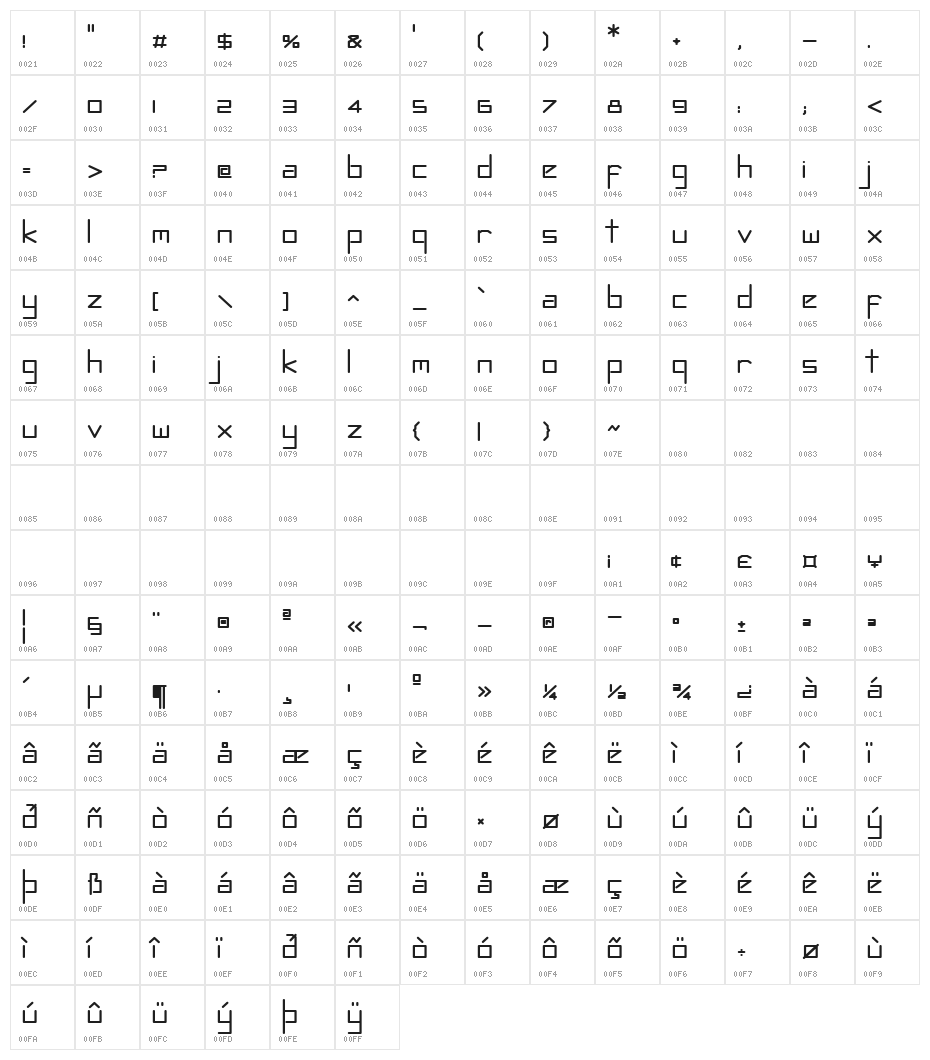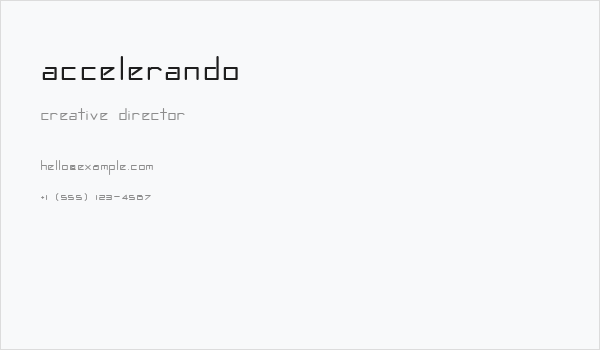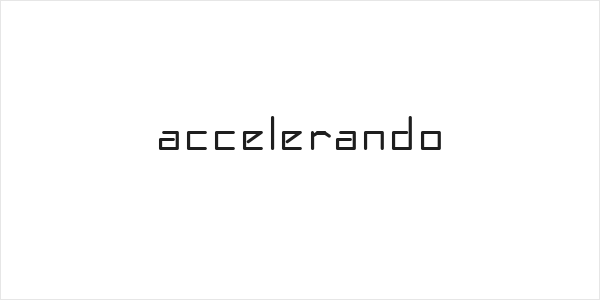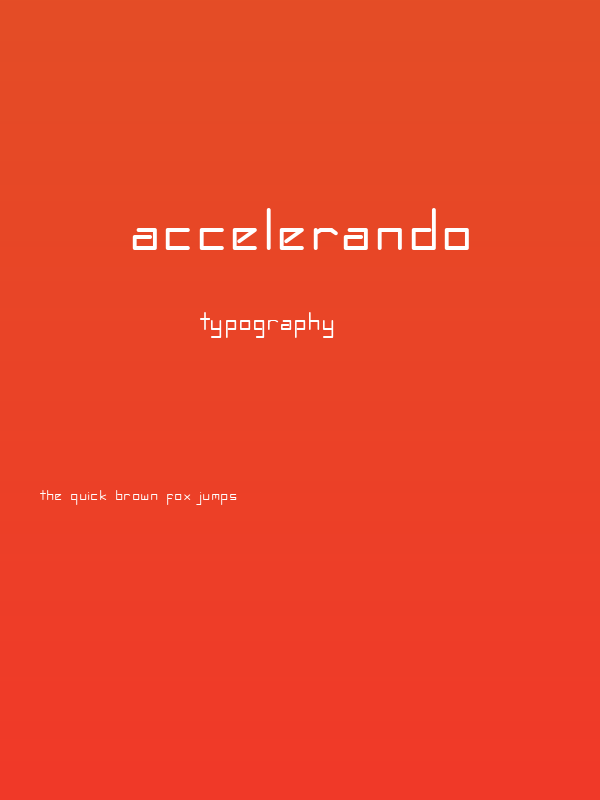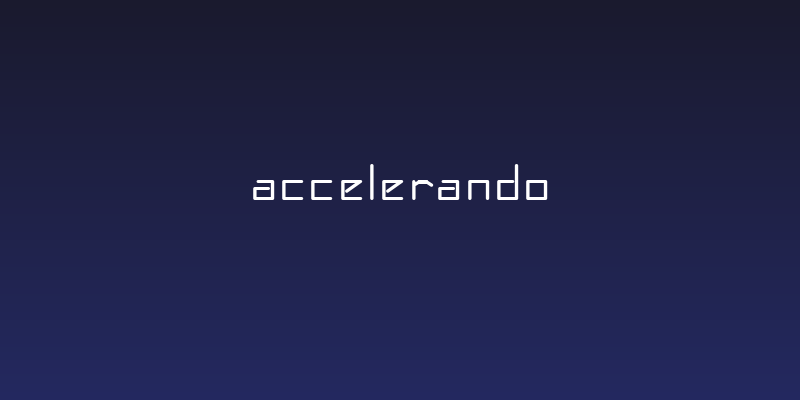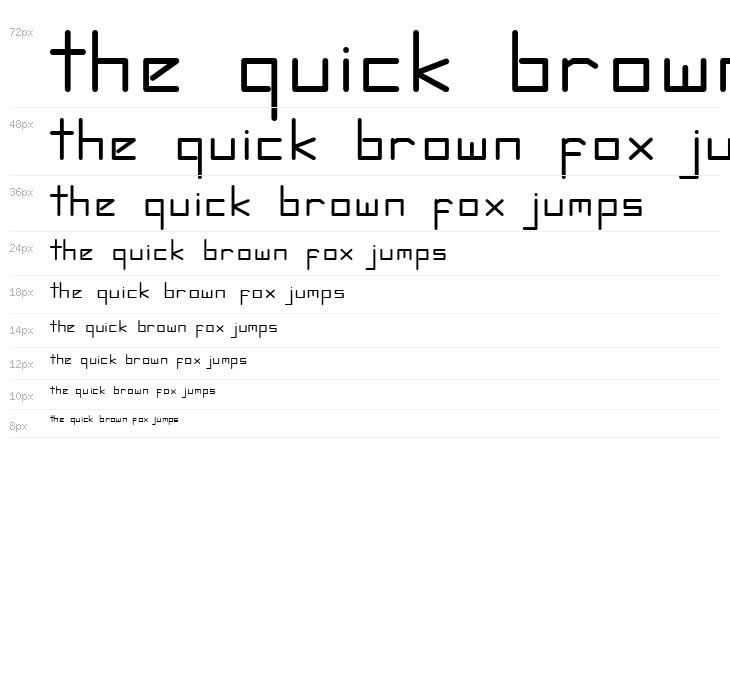
Accelerando Font
Accelerando Description
This font features a modern, geometric design with a distinct futuristic feel. The characters are composed of straight lines and sharp angles, giving it a technical and digital appearance. The uniform stroke width throughout the characters provides a clean and consistent look. The uppercase and lowercase letters share similar structures, enhancing the font's cohesive style. The numerals and special characters maintain the same geometric aesthetic, ensuring a seamless integration across all text elements. This font's unique style makes it ideal for projects that require a contemporary and innovative touch.
| Overall Style | Futuristic |
| Use Case | Headlines, Logos, Digital interfaces |
| Proposed Projects | Ideal for technology branding, digital interfaces, video game design, and futuristic-themed projects. |